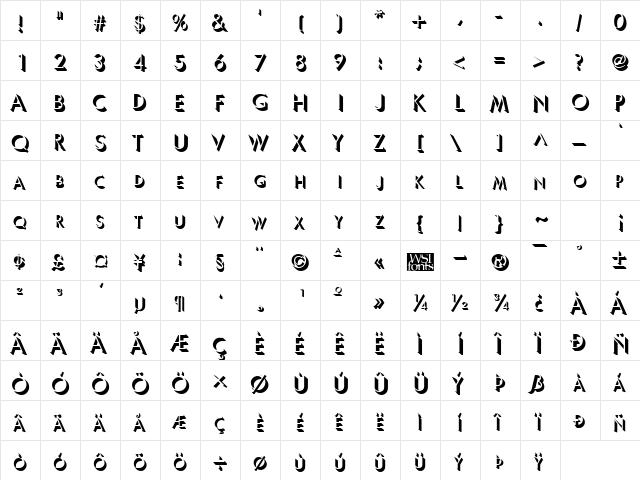
UltraShadow Regular
Design Context for UltraShadow Typeface
UltraShadow is built around its visual character rather than neutral utility — its distinctive forms are designed to make an impression at display sizes.
Font Pairing: Pair with a clean neutral sans-serif for body copy to let UltraShadow's character lead without overwhelming the composition.
Pro Tip: Treat UltraShadow as the centrepiece of your typographic hierarchy. One strong heading set in a decorative face can carry an entire layout.